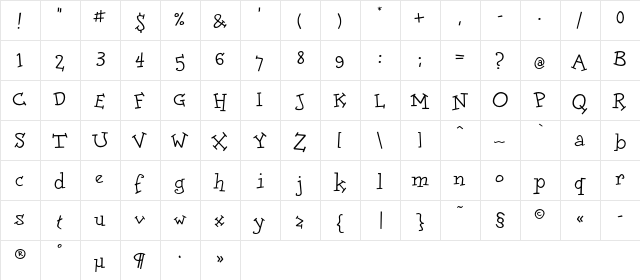
DoloresC Regular
Design Context for DoloresC Typeface
DoloresC is a composed and adaptable typeface that performs quietly and consistently across a wide range of design contexts.